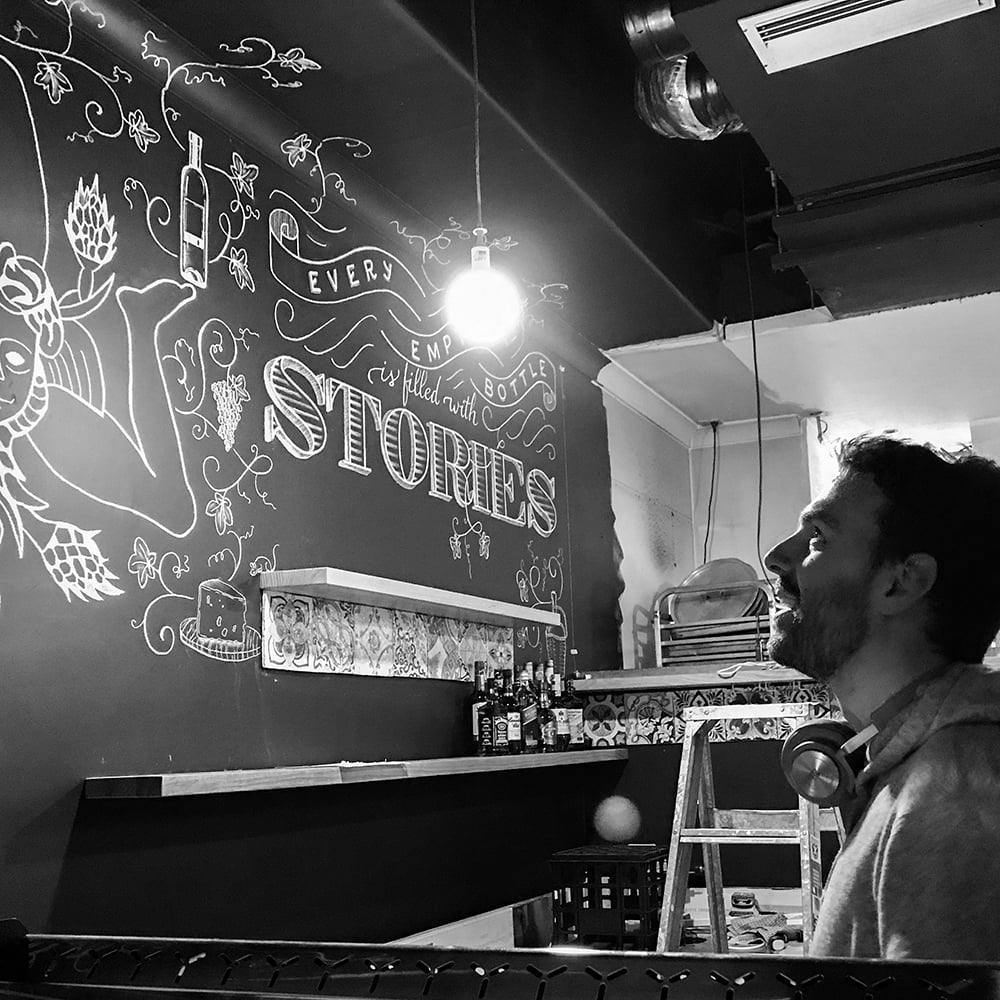
I am a lettering artist based in Melbourne. I help my clients decorate their interiors and menus to attract new customers and create cozy atmosphere.
I draw custom lettering for cafés, weddings, illustrations, logos, and packaging. I study and practice calligraphy — it gives my letterforms correct structure, rhythm, and shape.
I work with pens, markers, and brushes on paper, walls and other mediums, but most of all I love drawing on chalkboards. For my projects I use fine chalks that have vivid, saturated colours and don’t scratch the surface.